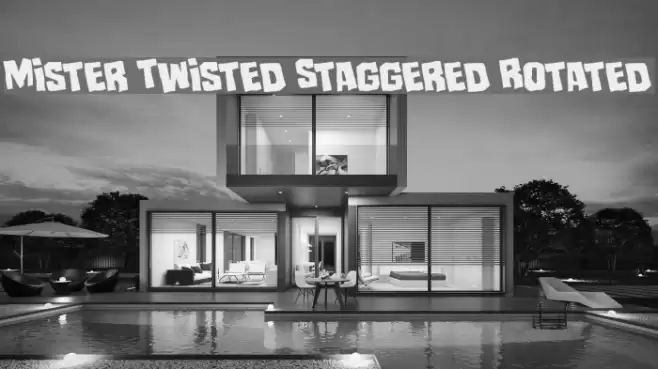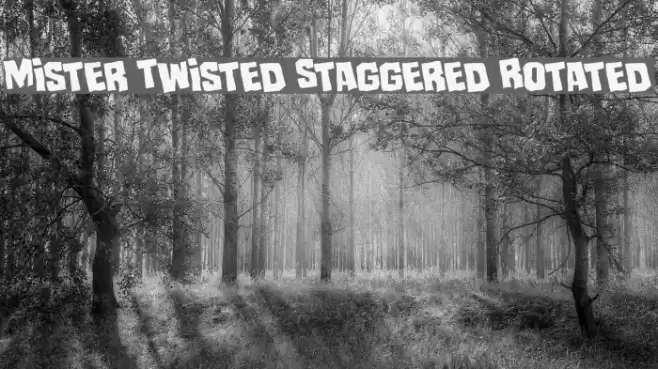
Mister Twisted Staggered Rotated Font
Mister Twisted Staggered Rotated Description
This font features a bold and dynamic style with a twisted, staggered, and rotated appearance. Each character is uniquely distorted, giving it a playful and chaotic feel. The uppercase and lowercase letters maintain a consistent weight, contributing to a cohesive yet unconventional look. The numbers and special characters follow the same design principles, ensuring uniformity across all glyphs. The font's irregular shapes and angles create a sense of movement and energy, making it ideal for projects that require a standout, eye-catching typeface.
A bold, twisted, and staggered font with a playful, chaotic style from Uncategorized fonts.
- Proposed Projects: Ideal for posters, album covers, video game graphics, and any project needing a bold, unconventional typeface.